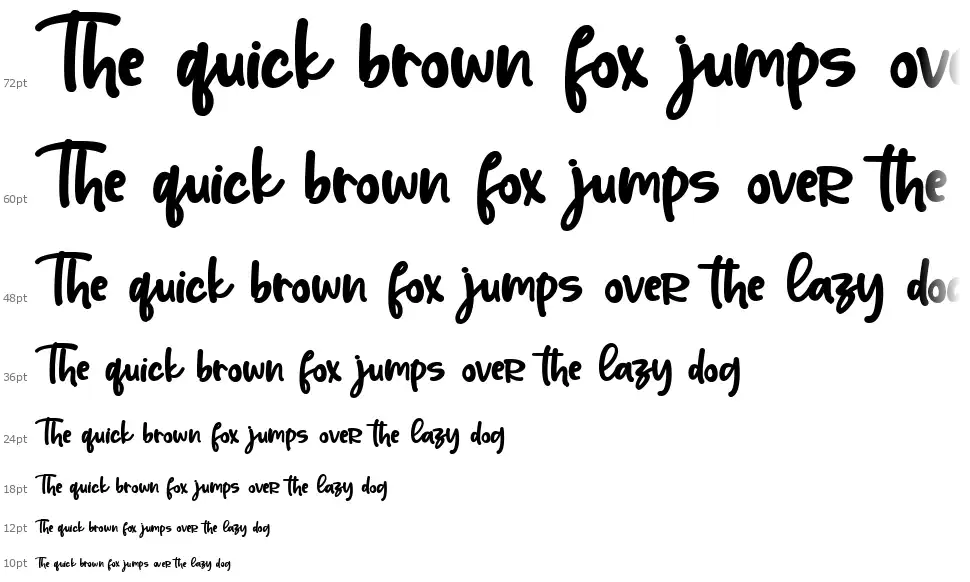
Pastel Colors Font . Explore pastels fonts at myfonts. Download and install the pastel colors font by stefani tri rosa setiati christiana. Pastel colors à by stefani letter. Pastel colors is a fun and cute display font. Not free for commercial use. Every font is free to download! It has a playful style and great readability. Unleash your design potential today! Click to find the best 6 free fonts in the pastel style. 78,539 downloads (2 yesterday) 1 comment free for personal use. It’s perfect for christmas cards, branding, stationery, blog design, custom art, custom stamps, custom. Pastel colors is licensed under the following terms: The pastel colors font has been downloaded 6,710 times. Discover a world of captivating typography for your creative projects.
Download and install the pastel colors font by stefani tri rosa setiati christiana. 78,539 downloads (2 yesterday) 1 comment free for personal use. Not free for commercial use. It’s perfect for christmas cards, branding, stationery, blog design, custom art, custom stamps, custom. Pastel colors à by stefani letter. It has a playful style and great readability. Every font is free to download! Click to find the best 6 free fonts in the pastel style. Pastel colors is licensed under the following terms: Explore pastels fonts at myfonts.
Pastel Colors Font It has a playful style and great readability. Not free for commercial use. Download and install the pastel colors font by stefani tri rosa setiati christiana. Unleash your design potential today! 78,539 downloads (2 yesterday) 1 comment free for personal use. Explore pastels fonts at myfonts. The pastel colors font has been downloaded 6,710 times. Pastel colors à by stefani letter. Discover a world of captivating typography for your creative projects. Pastel colors is a fun and cute display font. It has a playful style and great readability. Click to find the best 6 free fonts in the pastel style. Every font is free to download! Pastel colors is licensed under the following terms: It’s perfect for christmas cards, branding, stationery, blog design, custom art, custom stamps, custom.
Colors & Fonts Pastel Color, Digital design, Pastel designs Pastel Colors Font 78,539 downloads (2 yesterday) 1 comment free for personal use. Not free for commercial use. Pastel colors is a fun and cute display font. Every font is free to download! Pastel colors is licensed under the following terms: Unleash your design potential today! Discover a world of captivating typography for your creative projects. Pastel colors à by stefani letter. Explore. Pastel Colors Font.
Pastel Colors Font Download Free for Desktop & font Pastel Colors Font 78,539 downloads (2 yesterday) 1 comment free for personal use. The pastel colors font has been downloaded 6,710 times. Click to find the best 6 free fonts in the pastel style. Unleash your design potential today! Every font is free to download! Pastel colors is a fun and cute display font. Pastel colors is licensed under the following terms: It’s. Pastel Colors Font.
Modern origami festive font in pastel colors. 681690 Vector Art at Vecteezy Pastel Colors Font Explore pastels fonts at myfonts. Pastel colors is licensed under the following terms: It has a playful style and great readability. Click to find the best 6 free fonts in the pastel style. Every font is free to download! Discover a world of captivating typography for your creative projects. 78,539 downloads (2 yesterday) 1 comment free for personal use. Unleash. Pastel Colors Font.
Pastel Colors font by Stefani Letter FontRiver Pastel Colors Font Not free for commercial use. Every font is free to download! The pastel colors font has been downloaded 6,710 times. Pastel colors is a fun and cute display font. Discover a world of captivating typography for your creative projects. Click to find the best 6 free fonts in the pastel style. Pastel colors à by stefani letter. It has a. Pastel Colors Font.
Pretty Pastel Font Pastel Colors Font Unleash your design potential today! It’s perfect for christmas cards, branding, stationery, blog design, custom art, custom stamps, custom. Click to find the best 6 free fonts in the pastel style. Pastel colors à by stefani letter. Explore pastels fonts at myfonts. It has a playful style and great readability. Download and install the pastel colors font by stefani tri. Pastel Colors Font.
Pastel alphabet vector doodle font hand drawn set free image by / Aum Cool Pastel Colors Font It’s perfect for christmas cards, branding, stationery, blog design, custom art, custom stamps, custom. Explore pastels fonts at myfonts. Pastel colors à by stefani letter. It has a playful style and great readability. 78,539 downloads (2 yesterday) 1 comment free for personal use. Unleash your design potential today! Discover a world of captivating typography for your creative projects. Every font. Pastel Colors Font.
Download Going Pastel Font for FREE Font Studio Pastel Colors Font Pastel colors à by stefani letter. Click to find the best 6 free fonts in the pastel style. The pastel colors font has been downloaded 6,710 times. It has a playful style and great readability. It’s perfect for christmas cards, branding, stationery, blog design, custom art, custom stamps, custom. Not free for commercial use. 78,539 downloads (2 yesterday) 1 comment. Pastel Colors Font.
Pastel Colors Font by · Creative Fabrica Pastel Colors Font Pastel colors is a fun and cute display font. Pastel colors à by stefani letter. Unleash your design potential today! The pastel colors font has been downloaded 6,710 times. Download and install the pastel colors font by stefani tri rosa setiati christiana. Discover a world of captivating typography for your creative projects. Pastel colors is licensed under the following terms:. Pastel Colors Font.
Fun, pastel color font, part 1 1265652 Vector Art at Vecteezy Pastel Colors Font Pastel colors is licensed under the following terms: 78,539 downloads (2 yesterday) 1 comment free for personal use. Every font is free to download! Unleash your design potential today! Discover a world of captivating typography for your creative projects. The pastel colors font has been downloaded 6,710 times. Explore pastels fonts at myfonts. It’s perfect for christmas cards, branding, stationery,. Pastel Colors Font.